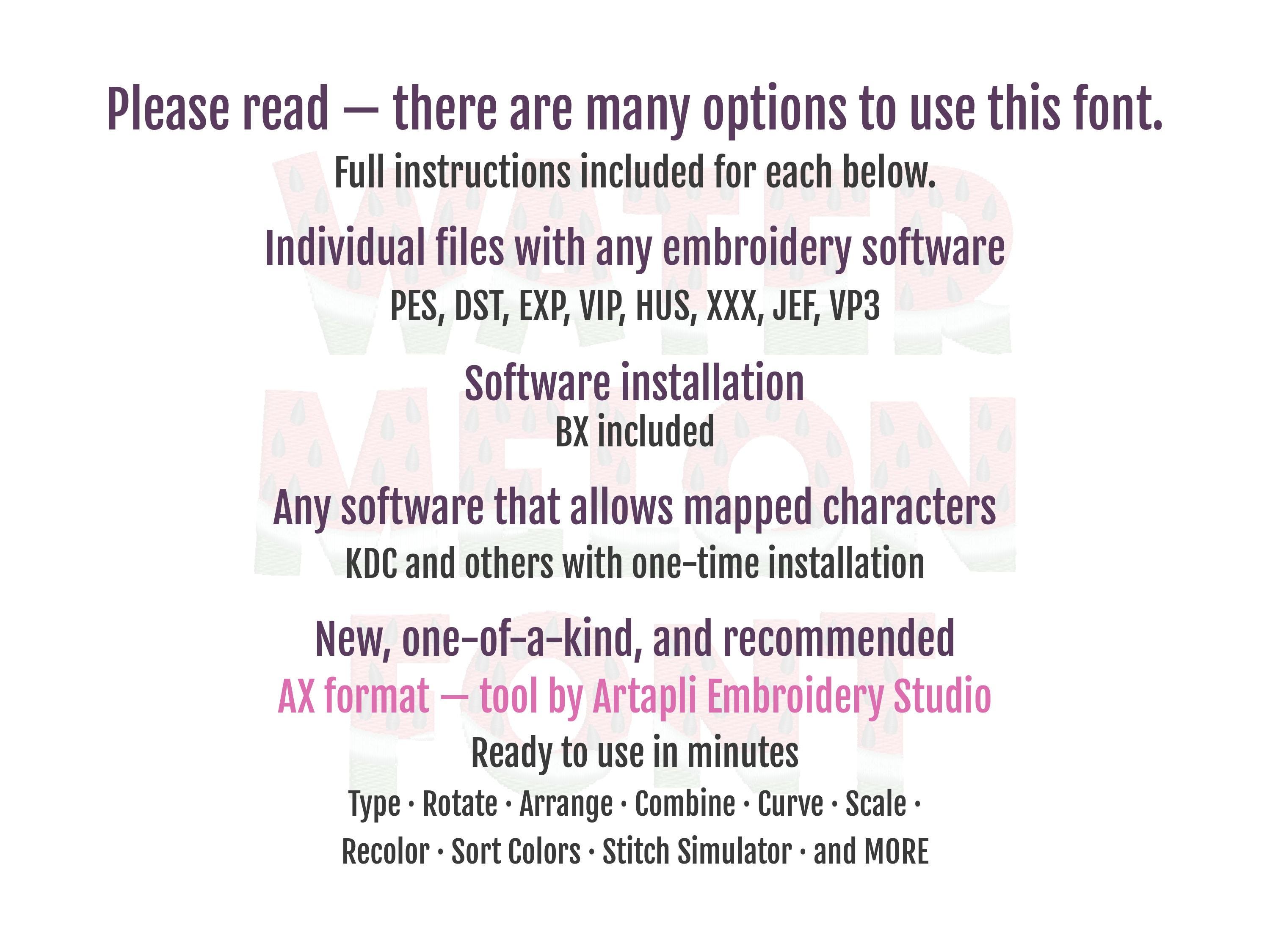
Patterned Watermelon Font Tutti Frutti summer Watermelon alphabet letters monogram machine embroidery designs Fresh Funny Sunny Fruit Berry
Fill stitch font.
Entire alphabet A-Z letters.